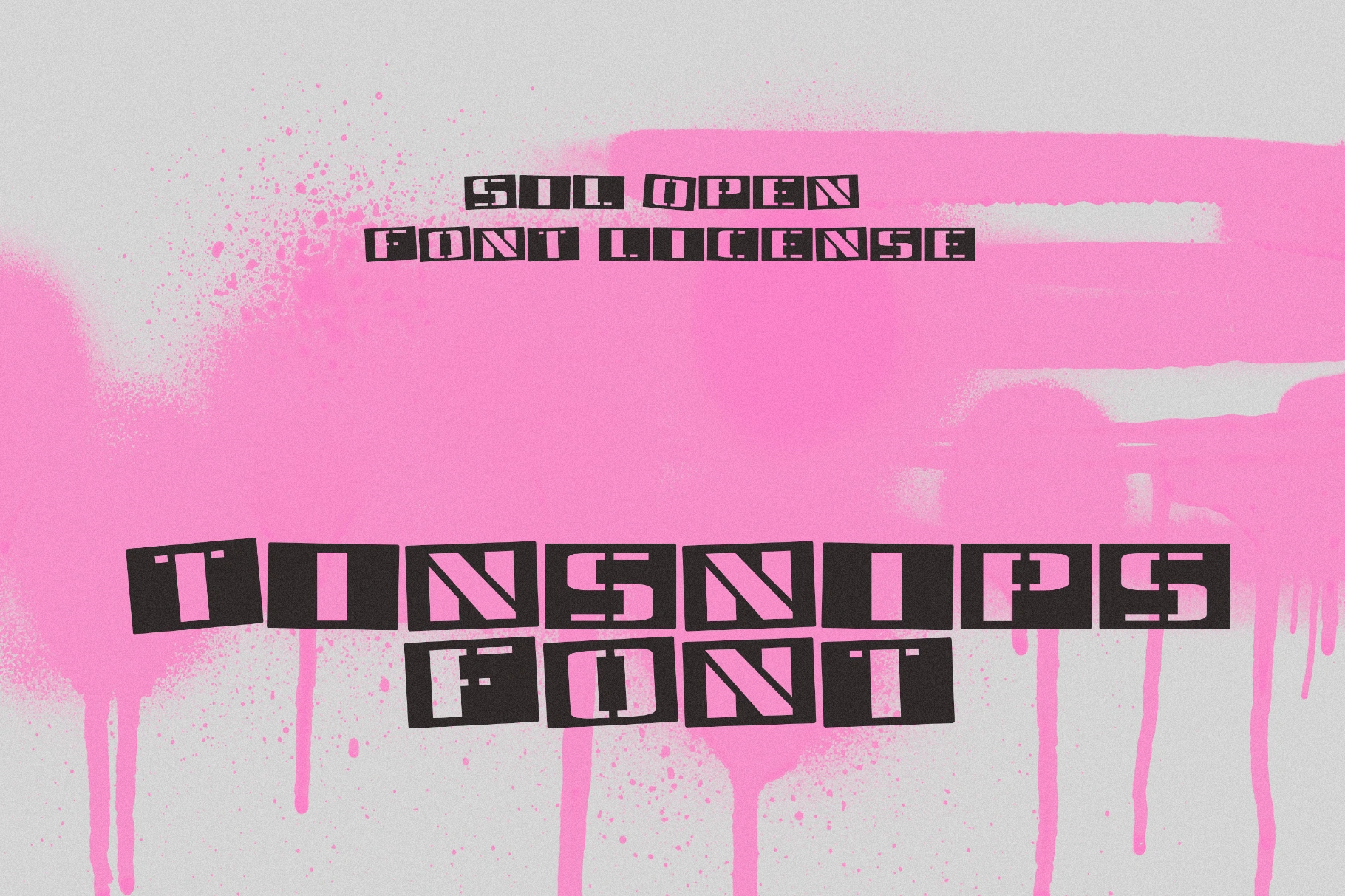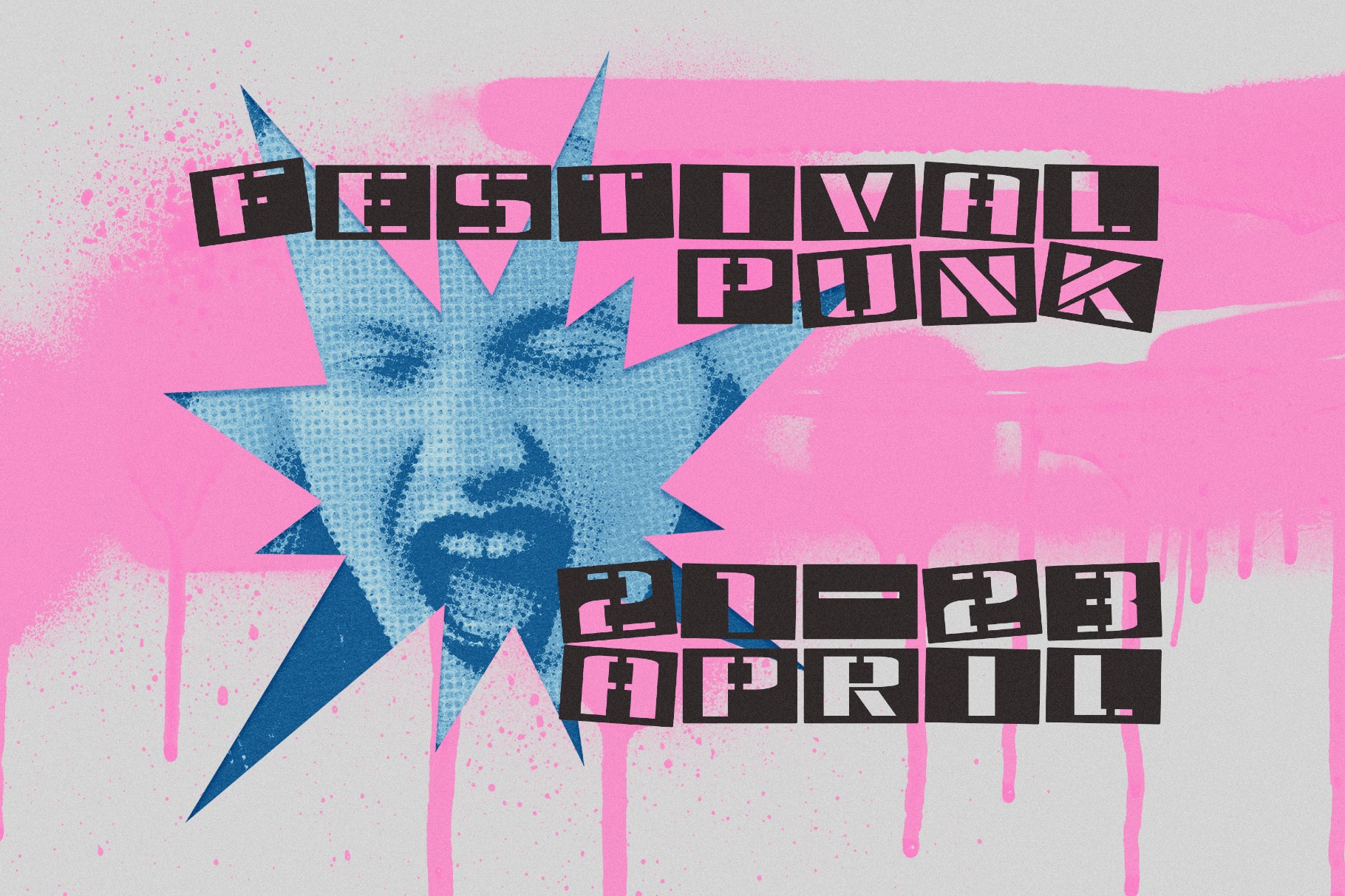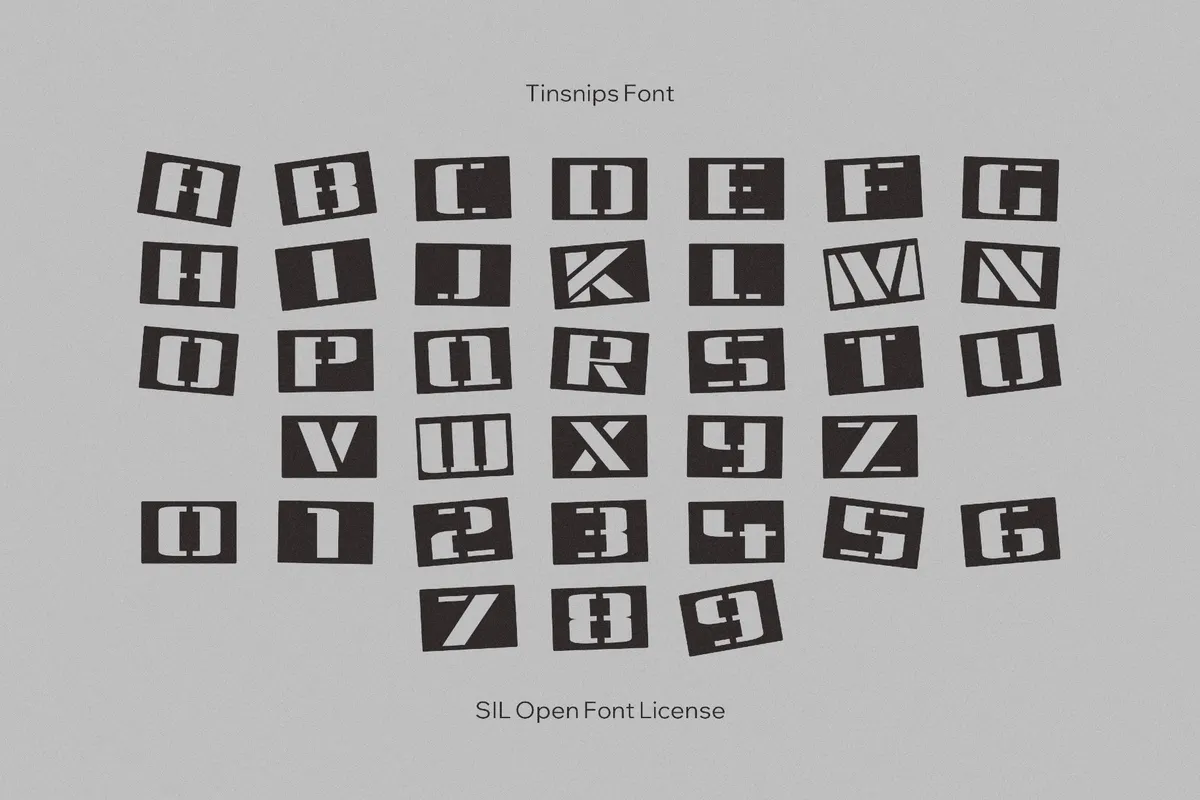
Tinsnips Font
This one is a tough stencil font with squared corners and clipped bridges. It looks lifted from handmade collage typography with the ink-scuffed attitude of punk-era gig posters. It’s ideal for magazine headlines, DIY event flyers, album artwork, sticker graphics, festival posters, crafty packaging, edgy branding concepts, sci-fi and military UI mockups, title cards, and social promos.
• Two coordinated uppercase sets.